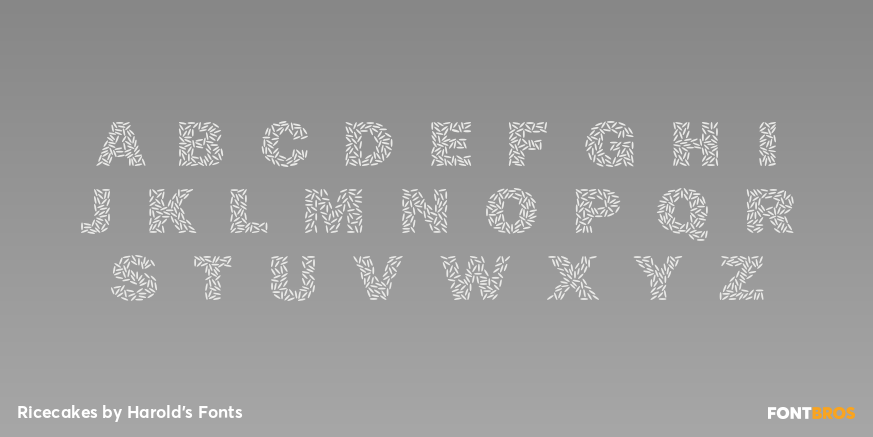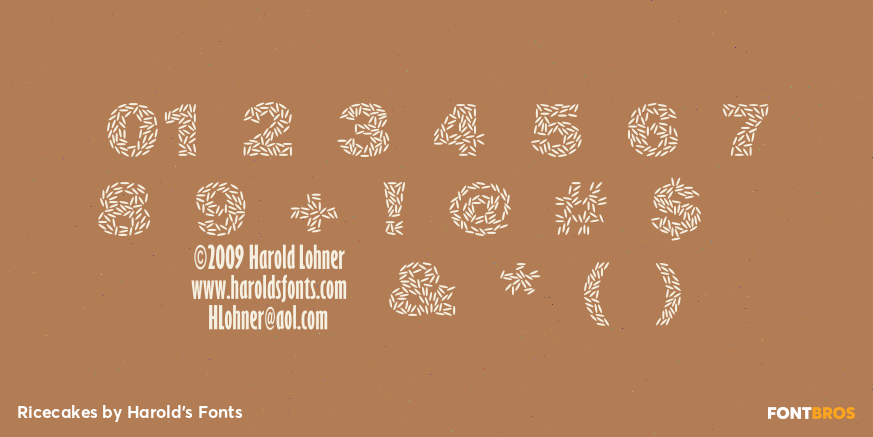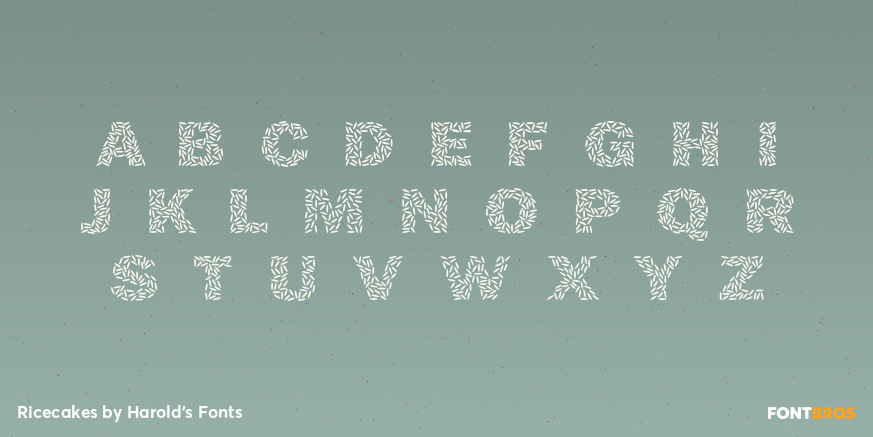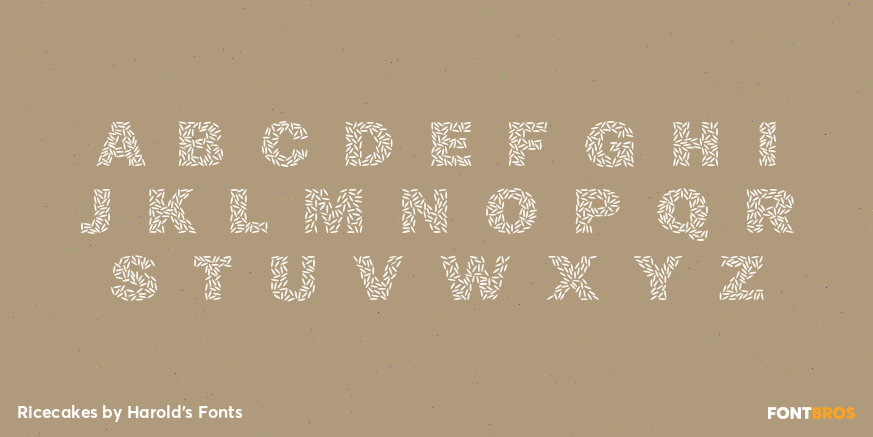
Ricecakes
Obviously, RICECAKES was designed to look like grains of rice arranged to form letters. It was my very first font design, planned for an event at Albany's Rice Gallery, but was not completed in time. The basic letterforms were inspired by the classic Franklin Gothic, although I did alter the 1 (not gothic enough!) Use it big, reverse it, color it to suggest flower petals, overlap it. Ricecakes Two has white grains on black.